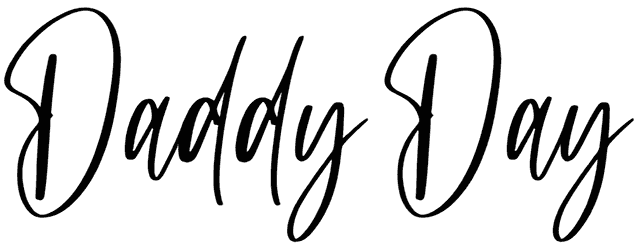
Daddy Day Font
Daddy Day is the most intimate font that you can use to congratulate your loved ones on various occasions. The imitation of normal human handwriting has made it look a bit illegible. But it has the power to attract your attention and implement your projects successfully.
This handwritten font can tell different stories depending on the background image. So if you’re looking to create a sense of intimacy and elegance in your writing, Daddy Day can be a catalyst.